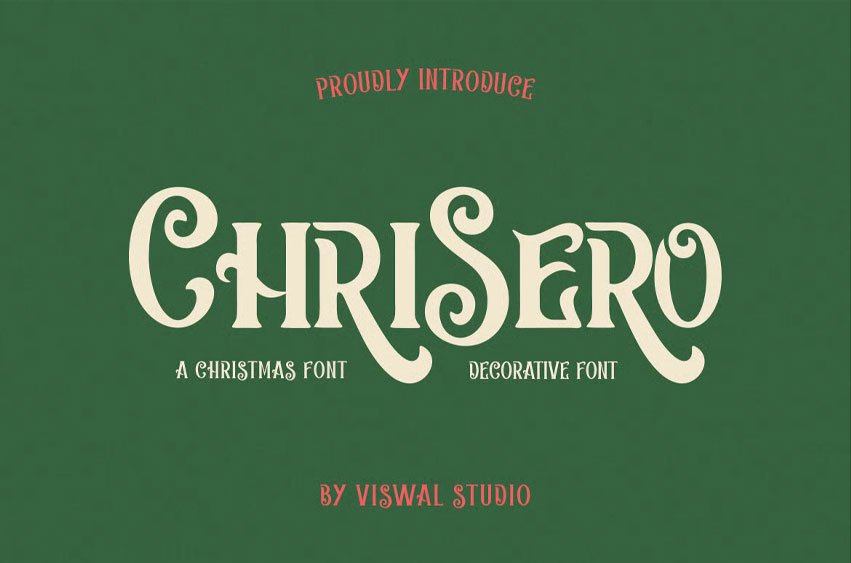
Chrisero Font is a festive Christmas font that makes it easier to convey your design messages. This font is suitable for various applications, including logos, labels, badges, branding, magazines, posters, titles, gigs, and covers.
Our font features both uppercase and lowercase letters, numerals, punctuation, and OpenType features. For stunning designs, you can mix it with other fonts as complementary elements.